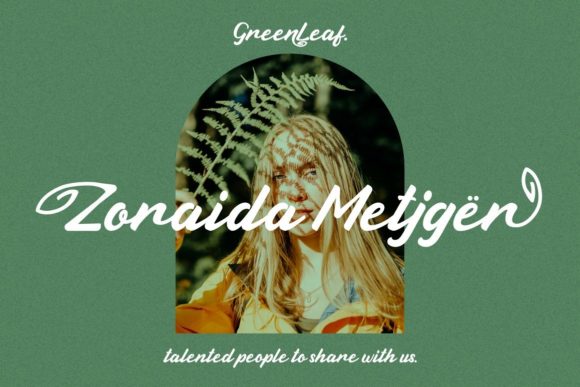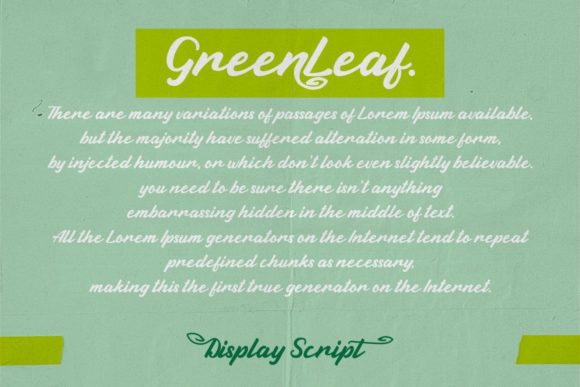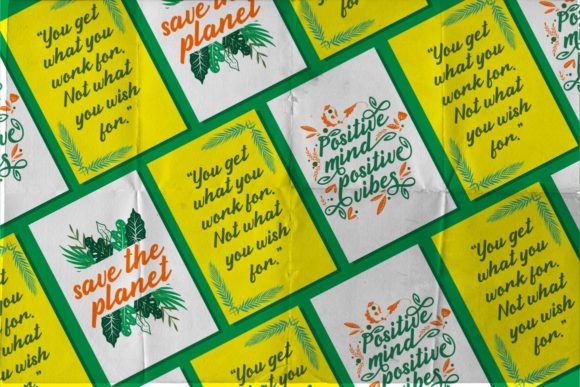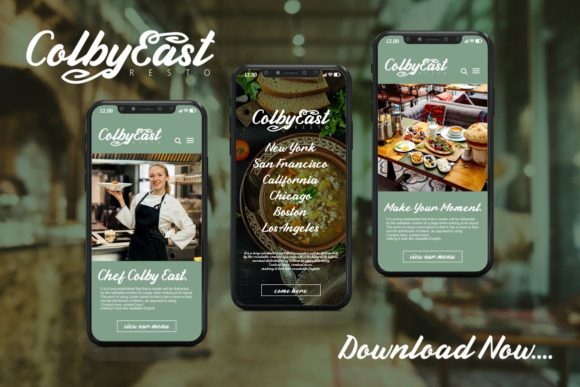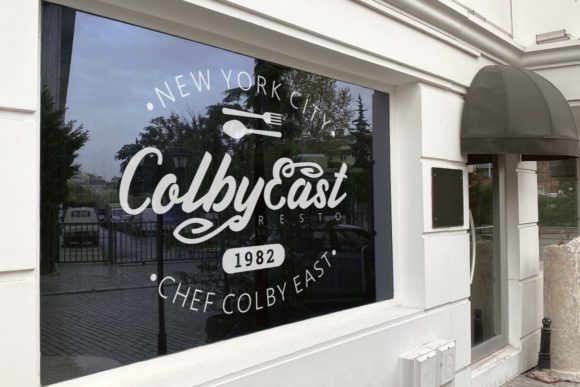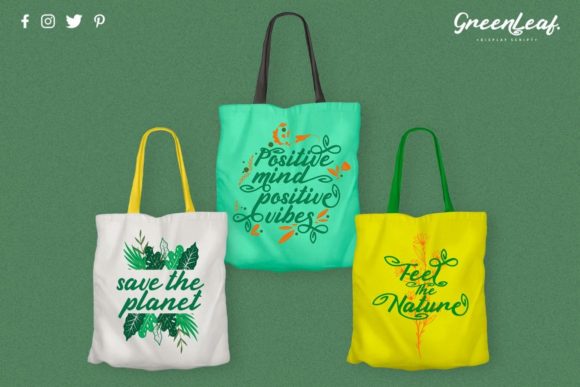
The Enchanting Green Leaf Font: A Designer’s New Best Friend
I’ll never forget the time I was working on a project for a client’s eco-friendly brand. I had spent hours brainstorming ideas, sketching out concepts, and refining my design. But as I sat staring at my computer screen, I just couldn’t seem to find the right font to bring it all together. That’s when I stumbled upon the Green Leaf font – and my design struggles instantly melted away ✨.
As a designer, I’m always on the lookout for fonts that can help me elevate my projects and make them stand out. And let me tell you, Green Leaf delivers! Here are a few things I love about this enchanting font:
- ✨ Versatility: Green Leaf is a script font that can be used for everything from greeting cards to headlines. It’s perfect for a wide range of design projects!
- ✅ PUA Encoding: This font is PUA encoded, which means you can access all of the amazing glyphs and ligatures with ease. No more tedious searching for the perfect character!
- 💫 Unique Character: Green Leaf has a distinct, handwritten feel that’s sure to add a touch of personality to any design.
Of course, no font is perfect, and Green Leaf does have a few small quirks:
- ⚠️ Limited use in very small sizes: While Green Leaf looks beautiful in larger sizes, it can become a bit blurry and hard to read when used in very small sizes. Be sure to test it out before committing to a specific size.
- 🤔 Some characters may require manual kerning: Depending on your design, you may need to do some manual kerning to get the spacing just right. But trust me, it’s worth it!
The Story Behind Green Leaf
Green Leaf was designed by a talented font designer who was inspired by the beauty of nature. With a passion for calligraphy and handwriting, the designer created Green Leaf as a way to bring a touch of elegance and sophistication to designs. And with its PUA encoding and extensive glyph library, Green Leaf has become a go-to font for designers around the world.
Here are a few frequently asked questions about Green Leaf:
- Q: What is PUA encoding?
- A: PUA (Private Use Area) encoding is a way of encoding fonts that allows for a wide range of glyphs and characters. This means that Green Leaf can be used for a variety of design projects, from elegant headings to intricate illustrations.
- Q: Is Green Leaf a difficult font to read?
- A: While Green Leaf is a script font, it’s actually quite legible – even at smaller sizes. However, as with any font, it’s always a good idea to test it out and ensure it works well for your specific design project.